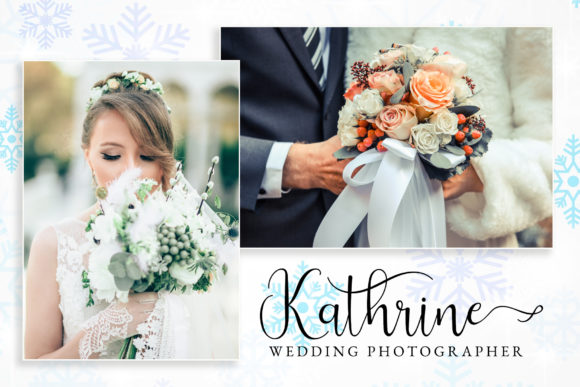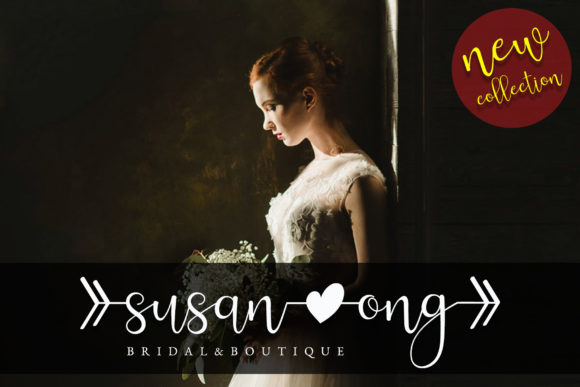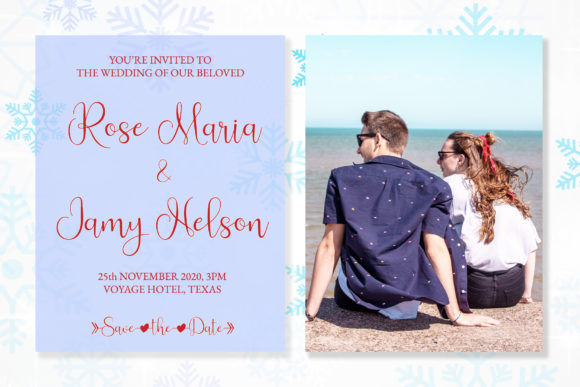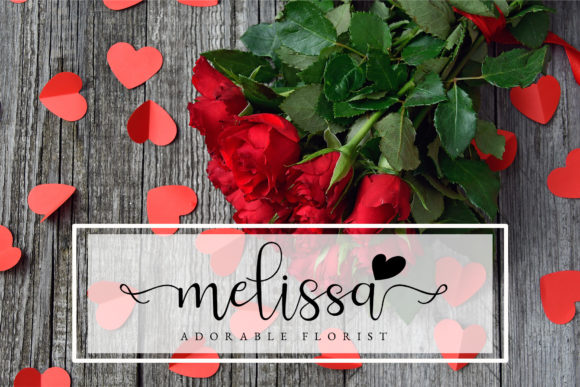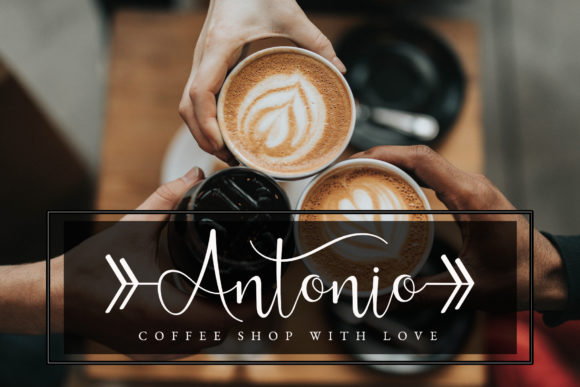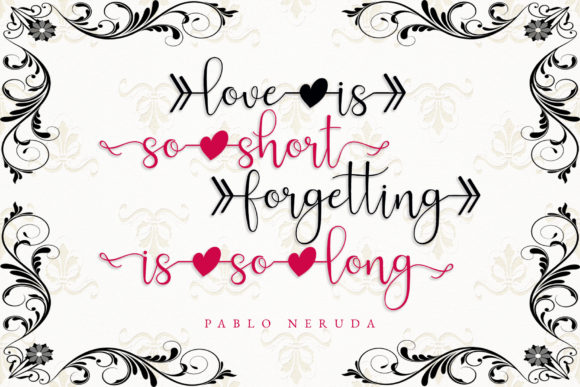
Introduction to Hello Sheila Font Font
Fonts play a crucial role in design, and the Hello Sheila Font font is a typeface that brings both character and versatility to any project. Whether you’re working on a branding project, a website, or a print design, the Hello Sheila Font font offers a unique style that can elevate your work.
Hello Sheila is a beautiful script font with love-themed arrow swashes.
This font will add a romantic feeling to any design .
Key Features of Hello Sheila Font Font
Why Choose Hello Sheila Font Font?
The Hello Sheila Font font is more than just a typeface – it’s a design tool that helps you communicate your message with style and clarity. Its unique character set and versatile design make it suitable for a wide range of applications, from elegant invitations to bold headlines.
With its carefully crafted letterforms and balanced proportions, the Hello Sheila Font font ensures readability and visual appeal across all mediums.
What makes Hello Sheila Font font special?
The Hello Sheila Font font stands out with its unique design, exceptional readability, and versatility across various design applications.